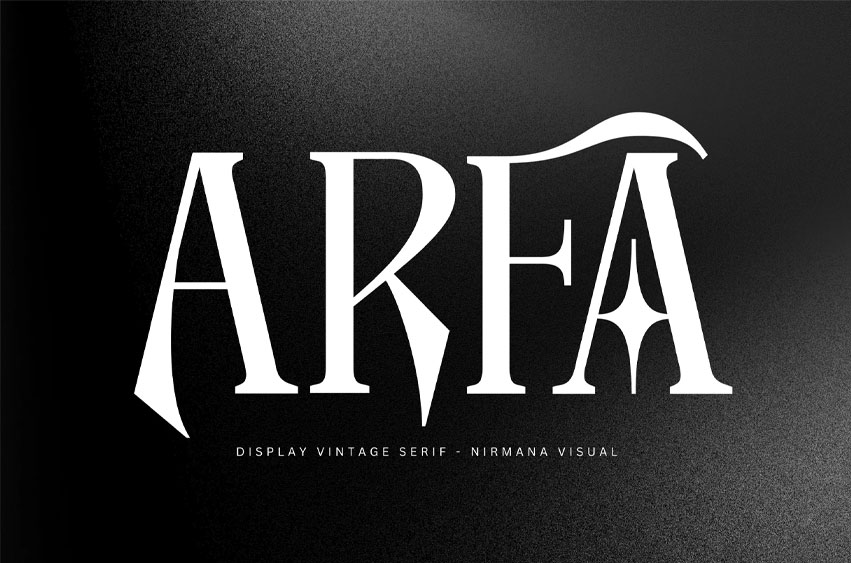
Arfa Vintage Font offers beautiful typographic harmony for a diversity of design projects, including logos & branding, social media posts, advertisements & product designs.